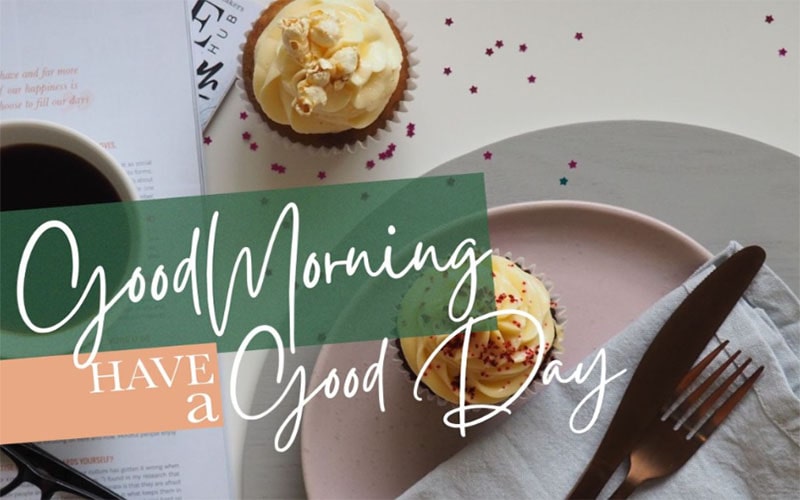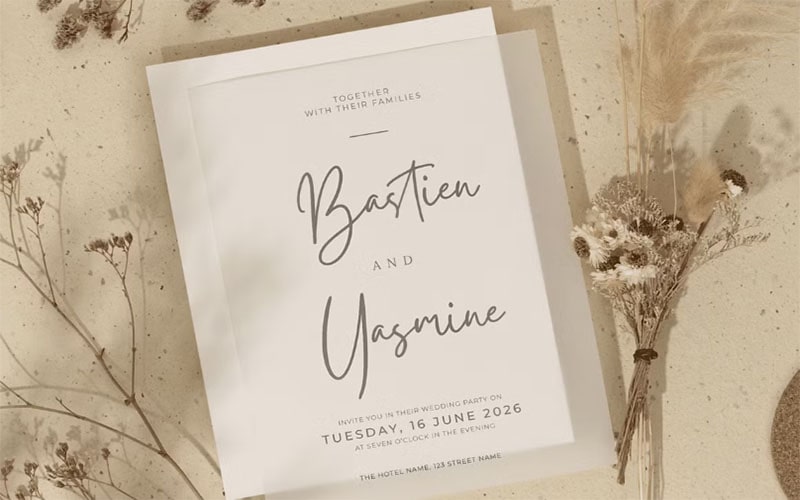
Gistesy Font is a contemporary calligraphic typeface that exudes elegance and charm. It is designed to emulate the fluidity and grace of traditional handwritten calligraphy, making it an excellent choice for projects that require a personal, sophisticated touch.
It was created by Creatype Studio, a design studio known for producing high-quality typefaces. Their focus on detail and aesthetic appeal is evident in the design of Gistesy, which combines classic elements with a contemporary twist.
It typically comes in a single, stylized script font style. It features flowing, connected letterforms with smooth curves and intricate details, embodying the aesthetic of modern calligraphy.
It includes an extensive character set, featuring uppercase and lowercase letters, numerals, punctuation marks, and various ligatures and swashes. This allows for a wide range of typographic creativity and customization.
This typeface primarily supports languages that use the Latin script. This makes it suitable for English and other Latin-based languages, ensuring its versatility in different linguistic contexts.
The font’s flowing, connected letterforms and smooth curves capture the beauty of modern calligraphy, making it perfect for elegant and sophisticated designs.